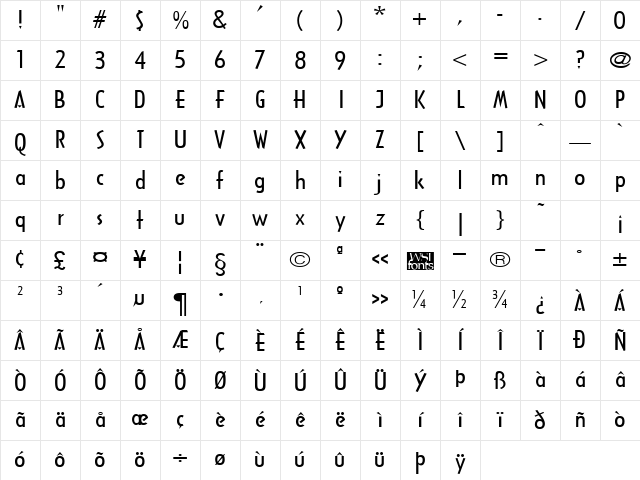
ArcaneBroad Regular
ArcaneBroad Family
Complete ArcaneBroad Regular glyph index. Displaying only characters natively supported by ArcaneBroad Regular font.
Design Context for ArcaneBroad
ArcaneBroad is a composed and adaptable typeface that performs quietly and consistently across a wide range of design contexts.